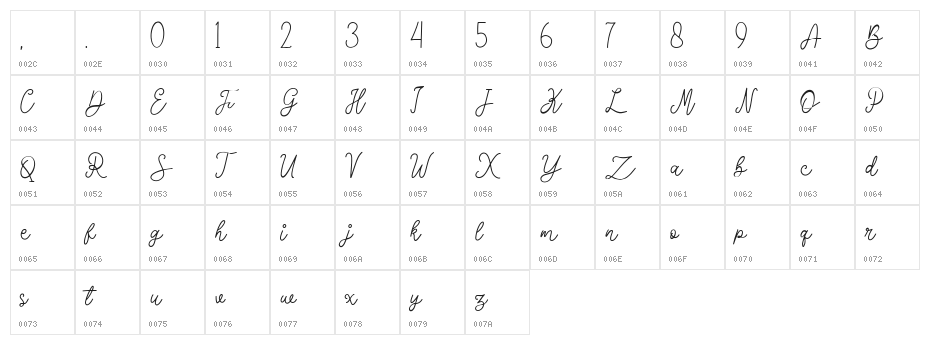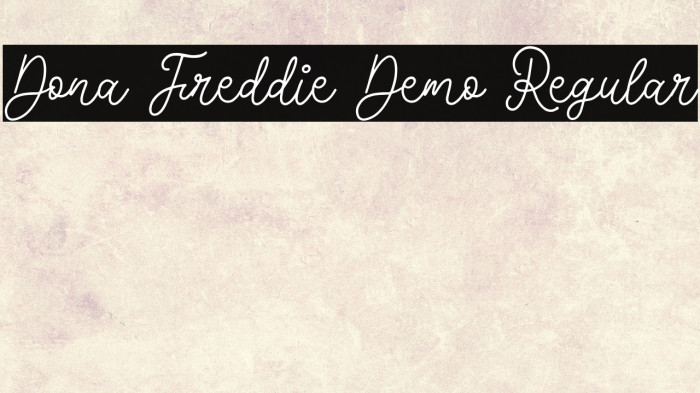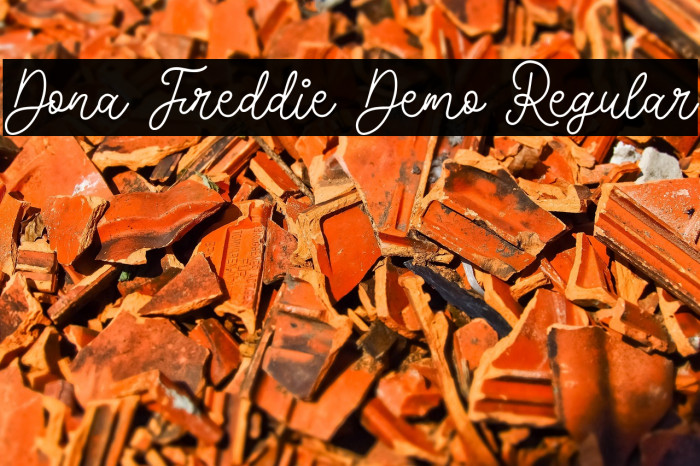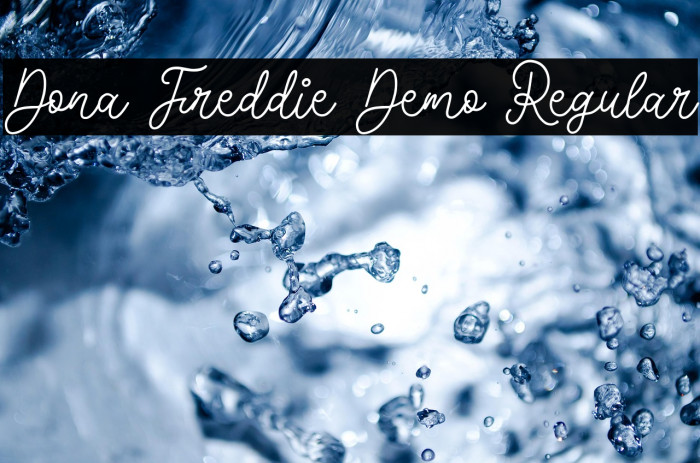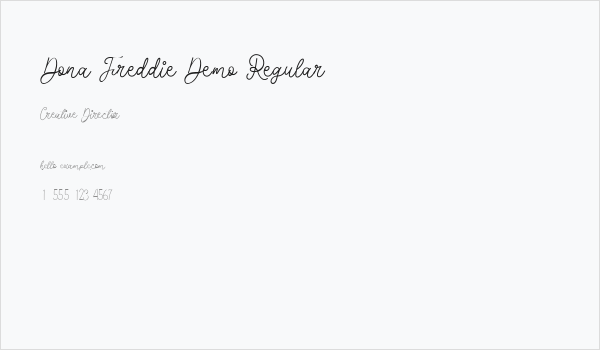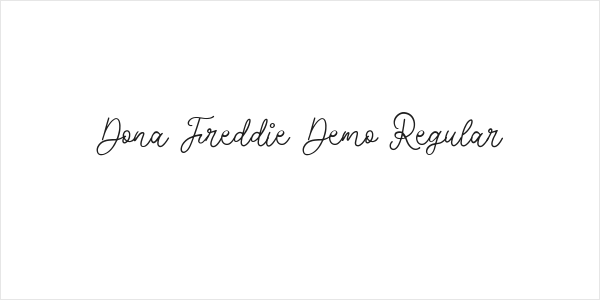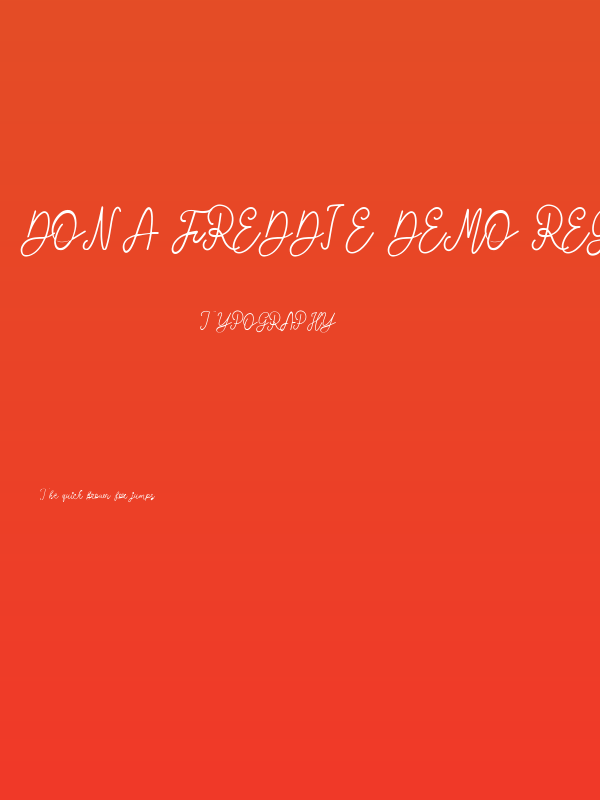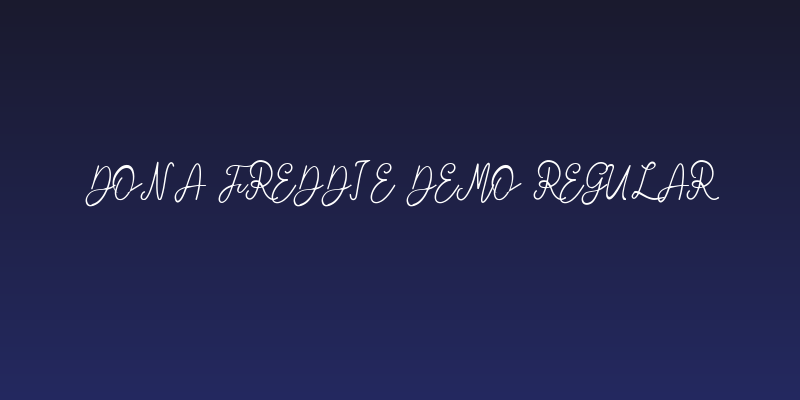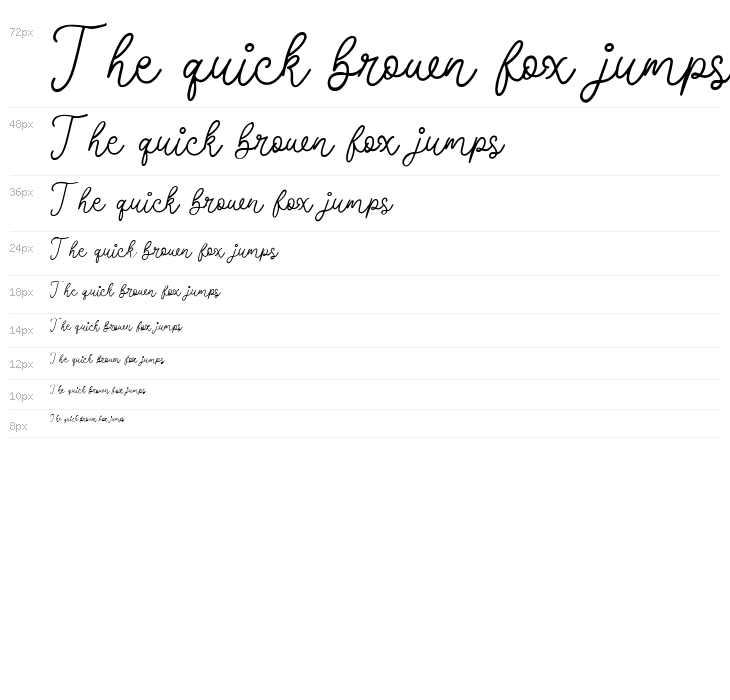
Dona Freddie Demo Regular Font
Dona Freddie Demo Regular Description
This elegant script font features a flowing, handwritten style that exudes a sense of sophistication and charm. The letters are interconnected, creating a seamless and fluid appearance that mimics natural handwriting. The uppercase letters are slightly more elaborate, while the lowercase letters maintain a consistent and smooth flow. The numerals are clear and easy to read, complementing the overall aesthetic. Special characters are thoughtfully designed to match the script's graceful style, making it versatile for various applications.